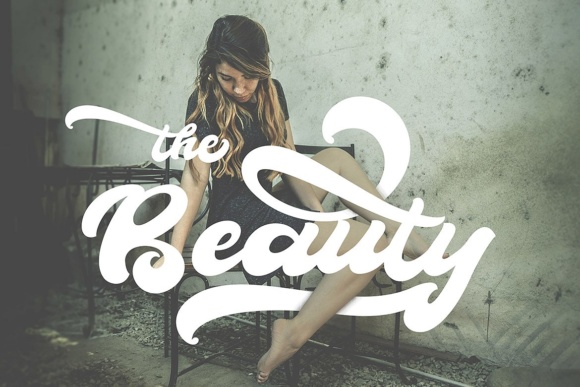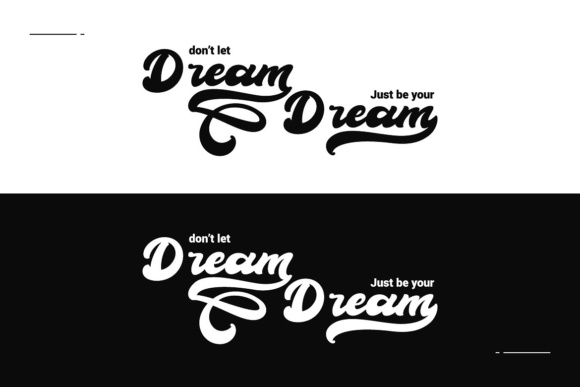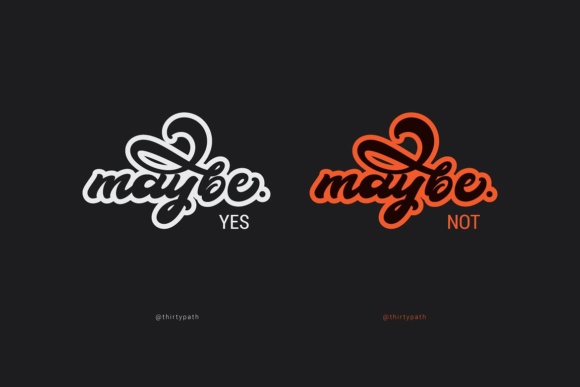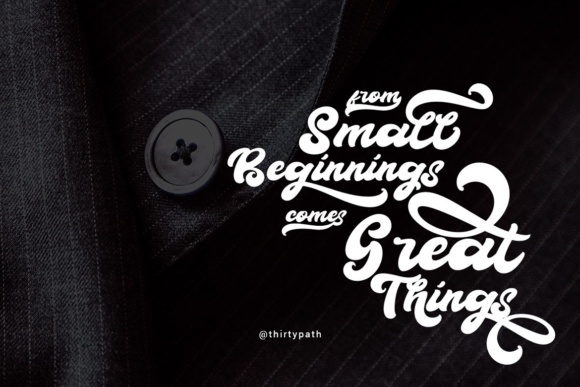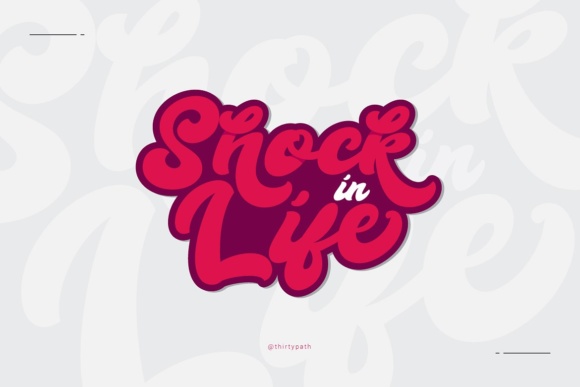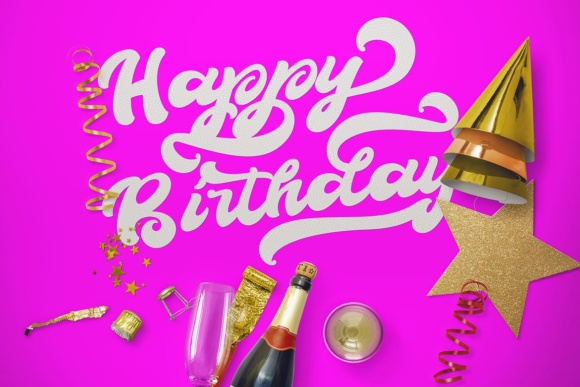
Introducing the Boldie Script Font: Elevate Your Designs with Stunning Bold Typography
In the world of design, typography plays a crucial role in capturing the essence of a message. A well-chosen font can instantly elevate your design, making it more engaging, memorable, and impactful. If you’re looking to add a touch of boldness and sophistication to your creations, look no further than the Boldie Script Font. This stunning, bold hand-lettered font is designed to help you make a lasting impression on your audience.
The Power of Bold Typography
Bold typography is a powerful tool in the world of design. It can be used to draw attention, convey confidence, and add a touch of drama to your creations. However, finding the right bold font can be a challenge. You want a font that is not only visually striking but also versatile and easy to read. This is where the Boldie Script Font comes in – a game-changing font that ticks all the boxes.
What Makes the Boldie Script Font Special?
The Boldie Script Font is a beautifully crafted, bold hand-lettered font that is designed to make a statement. Its stunning letterforms are carefully crafted to provide a unique and distinctive look that will set your designs apart from the rest. With the Boldie Script Font, you can add stunning bold typography to your designs in an instant, saving you time and effort.
One of the standout features of the Boldie Script Font is its versatility. It can be used for a wide range of design projects, from branding and advertising to packaging and digital media. Whether you’re a professional designer or a crafter, this font is sure to become a valuable addition to your toolkit.
Key Features of the Boldie Script Font
- Stunning bold hand-lettered design: The Boldie Script Font features beautifully crafted letterforms that are designed to make a statement.
- Instant impact: With the Boldie Script Font, you can add stunning bold typography to your designs in an instant, saving you time and effort.
- Versatile: This font can be used for a wide range of design projects, from branding and advertising to packaging and digital media.
- Easily readable: Despite its bold design, the Boldie Script Font is easy to read, making it perfect for use in a variety of contexts.
How to Use the Boldie Script Font in Your Designs
Once you’ve installed the font, you can start experimenting with different design ideas. Use it to create stunning headlines, bold statements, and eye-catching titles. You can also use it to add a touch of personality to your designs, making them more engaging and memorable.
Tips for Getting the Most Out of the Boldie Script Font
To get the most out of the Boldie Script Font, here are a few tips to keep in mind:
- Experiment with different colors: The Boldie Script Font looks great in a variety of colors, so don’t be afraid to experiment and find the perfect color for your design.
- Use it sparingly: While the Boldie Script Font is stunning, it’s best used sparingly. Use it to create a focal point in your design, and then use a more subtle font for the rest of the text.
- Pair it with other fonts: The Boldie Script Font pairs well with a variety of other fonts, so don’t be afraid to experiment and find the perfect combination for your design.
| Font Name | Boldie Script Font |
| Author | Thirtypath |